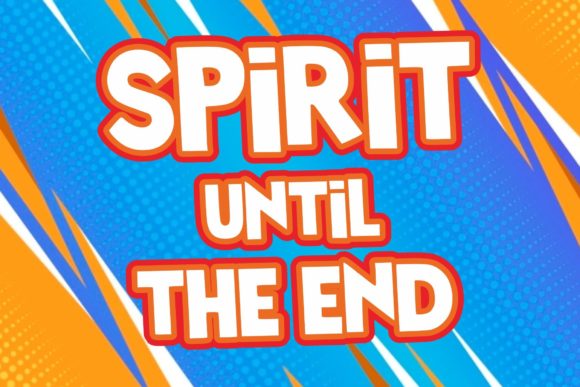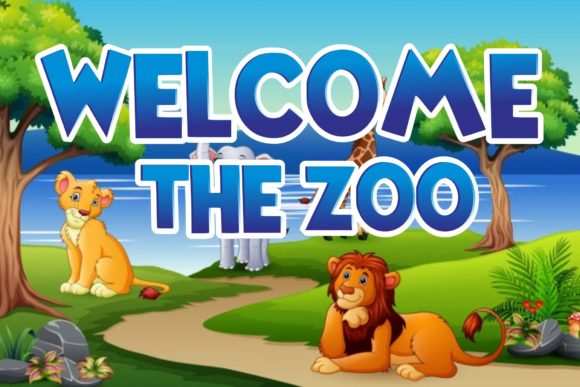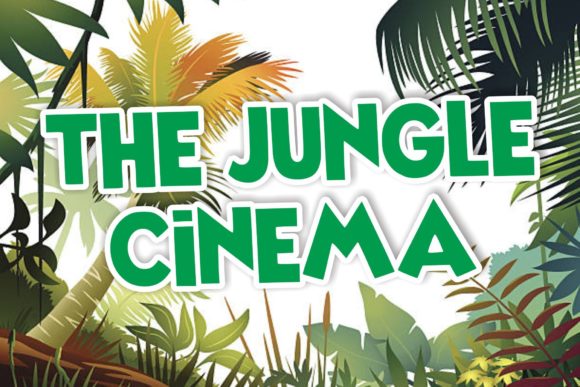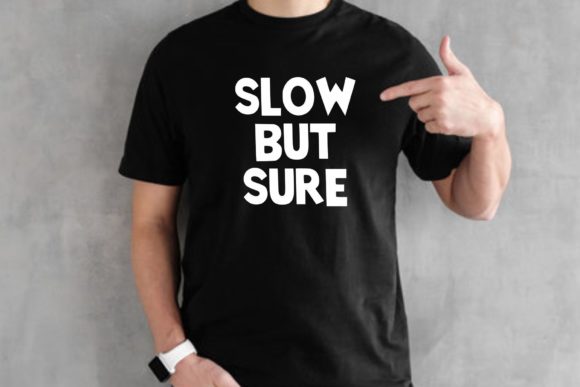
Introducing Bigs Toon Font: The Ultimate Playful Display Font
Are you looking for a font that can add a playful touch to your designs? Look no further than Bigs Toon Font! This fun and friendly styled display font is perfect for any creation that requires a casual and informal feel. In this article, we’ll explore the features and benefits of Bigs Toon Font, and how it can elevate your designs to the next level.
What is Bigs Toon Font?
Bigs Toon Font is a display font designed to bring a smile to your face. Its informal feel and casual vibe make it an excellent choice for designers and crafters who want to add a playful touch to their work. Whether you’re creating product packaging, t-shirts, labels, posters, logos, or any other design project, Bigs Toon Font is the perfect choice.
Key Features of Bigs Toon Font
- Fun and Friendly Style: Bigs Toon Font has a unique and playful style that’s sure to grab attention.
- Informal Feel: This font has a casual vibe that’s perfect for designs that require a relaxed and approachable tone.
- Versatile: Bigs Toon Font can be used for a wide range of design projects, from product packaging to logos and posters.
- Easy to Read: Despite its playful style, Bigs Toon Font is easy to read, making it perfect for headlines and titles.
Benefits of Using Bigs Toon Font
So, why should you choose Bigs Toon Font for your designs? Here are just a few benefits of using this amazing font:
- Adds a Playful Touch: Bigs Toon Font can add a playful touch to your designs, making them more engaging and fun.
- Stand Out from the Crowd: With its unique and playful style, Bigs Toon Font can help your designs stand out from the crowd.
- Perfect for Branding: This font is perfect for creating memorable and recognizable brand identities.
Use Cases for Bigs Toon Font
So, what can you use Bigs Toon Font for? Here are just a few ideas to get you started:
- Product Packaging: Add a playful touch to your product packaging with Bigs Toon Font.
- T-Shirts and Apparel: Create fun and eye-catching designs for t-shirts and other apparel.
- Labels and Stickers: Use Bigs Toon Font to create colorful and playful labels and stickers.
- Posters and Flyers: Create eye-catching posters and flyers with Bigs Toon Font.
- Logos and Branding: Use Bigs Toon Font to create memorable and recognizable logos and brand identities.
Tips for Using Bigs Toon Font
Here are a few tips for getting the most out of Bigs Toon Font:
- Use it for Headlines: Bigs Toon Font is perfect for headlines and titles, so use it to grab attention.
- Experiment with Colors: Try out different colors and color combinations to add an extra layer of fun to your designs.
- Pair it with Other Fonts: Experiment with pairing Bigs Toon Font with other fonts to create a unique and interesting look.
In conclusion, Bigs Toon Font is a fun and friendly styled display font that’s perfect for adding a playful touch to your designs. With its informal feel and casual vibe, it’s an excellent choice for designers and crafters who want to create eye-catching and engaging designs. Whether you’re creating product packaging, t-shirts, labels, posters, logos, or any other design project, Bigs Toon Font is the perfect choice. So why wait? Download Bigs Toon Font today and start creating!